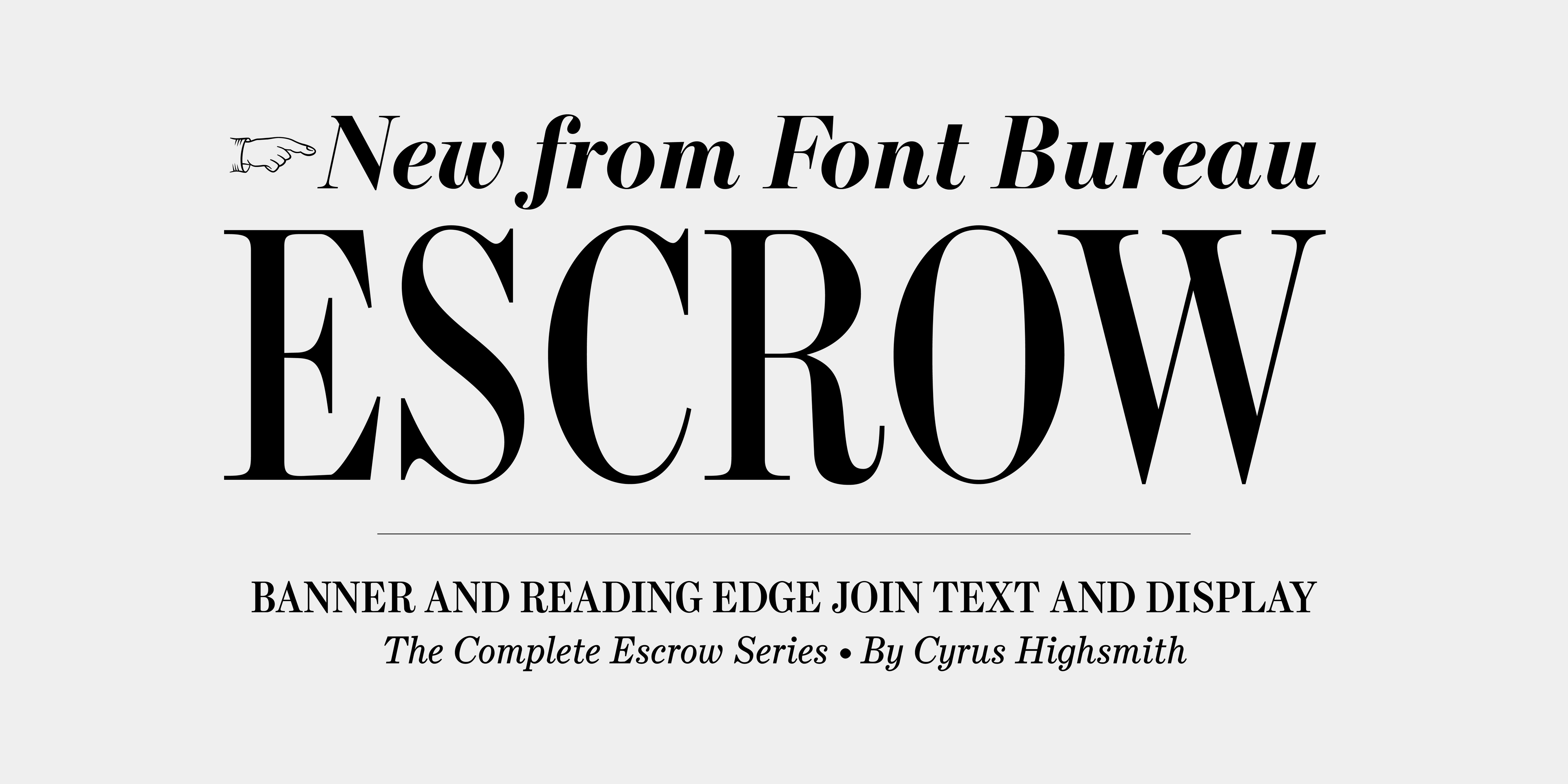
Cyrus Highsmith designed 44 styles in this new Scotch series. Escrow sets the tone of the front page of The Wall Street Journal, envy of the newspaper industry. “Escrow is the spectacular element holding the whole thing together” Design Director Joe Dizney.
With the addition of a new Banner style for big headlines and the
Reading Edge version for easy reading onscreen, the Escrow family offers a complete solution for print and digital, from very large to very small.
Escrow Banner, drawn by
Richard Lipton based on Cyrus Highsmith’s design, is aimed at the very largest headlines or titles. It takes strong contrast, already an Escrow family trait, to extremes, giving the editorial designer a dramatic range of styles for consistent effects across print and digital media.
Escrow Banner matches the existing weights and widths of the Escrow family: its 28 styles comprise five weights (Light, Roman, Semibold, Bold, and Black) and three widths (Normal, Condensed, and Compressed), all in both roman and italic. Escrow’s range and variety is ideal for use in elegant, glamorous branding, advertising, and headlines.
Escrow RE brings the strengths of the Reading Edge series to Escrow, with four styles (Regular, Italic, Bold, and Bold Italic) carefully crafted and engineered by Dyana Weissman to be clear and readable at text sizes onscreen.
The Escrow family was created for The Wall Street Journal, where it has been the keystone since Mario Garcia’s redesign of 2002. Design Director Joe Dizney has described Escrow as “the spectacular single element that holds the whole thing together.”
Escrow Banner joins Miller Banner, Big Moore, Big Caslon, Stilson, Whitman Display, and Zocalo in a long line of elegant solutions for designers.
Shown above: (headlines) Escrow Banner Compressed Black, Escrow Banner Semibold; (decks) Escrow Semibold, Escrow Italic; (byline) Escrow Text Roman SC & Escrow Text Italic; (text) Escrow Text Roman.